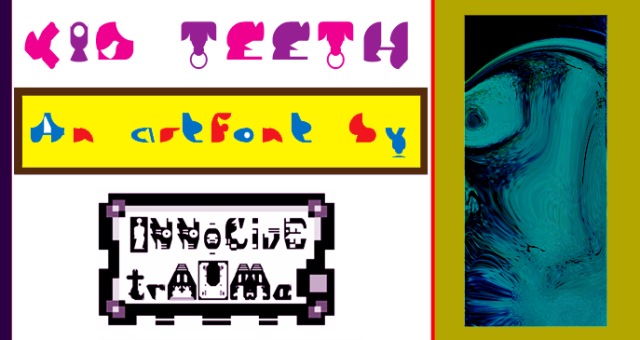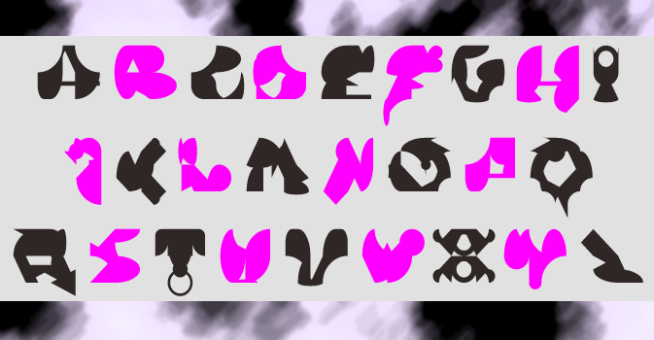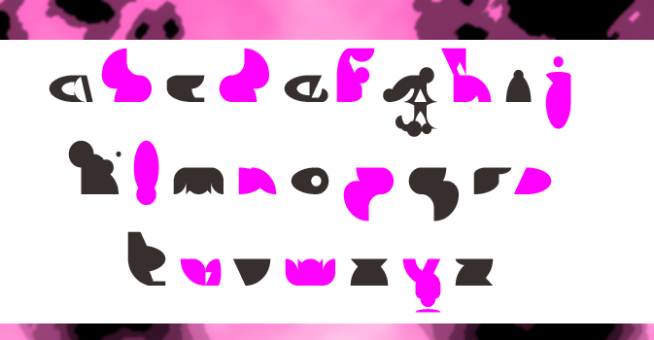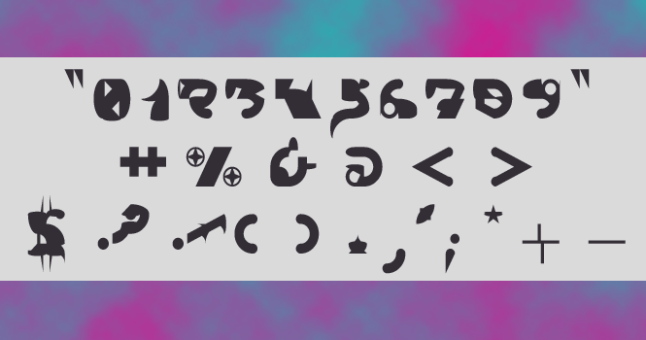
trAUMa 18 / Kid Teeth
"Kid Teeth", like all the "trAUMa" series, works at the frontier between Art & Type Design, Figuration & Abstraction, each font is a comprehensive world in which every glyph is a "living" entity. But put together they can produce your messages in the most accurate way.